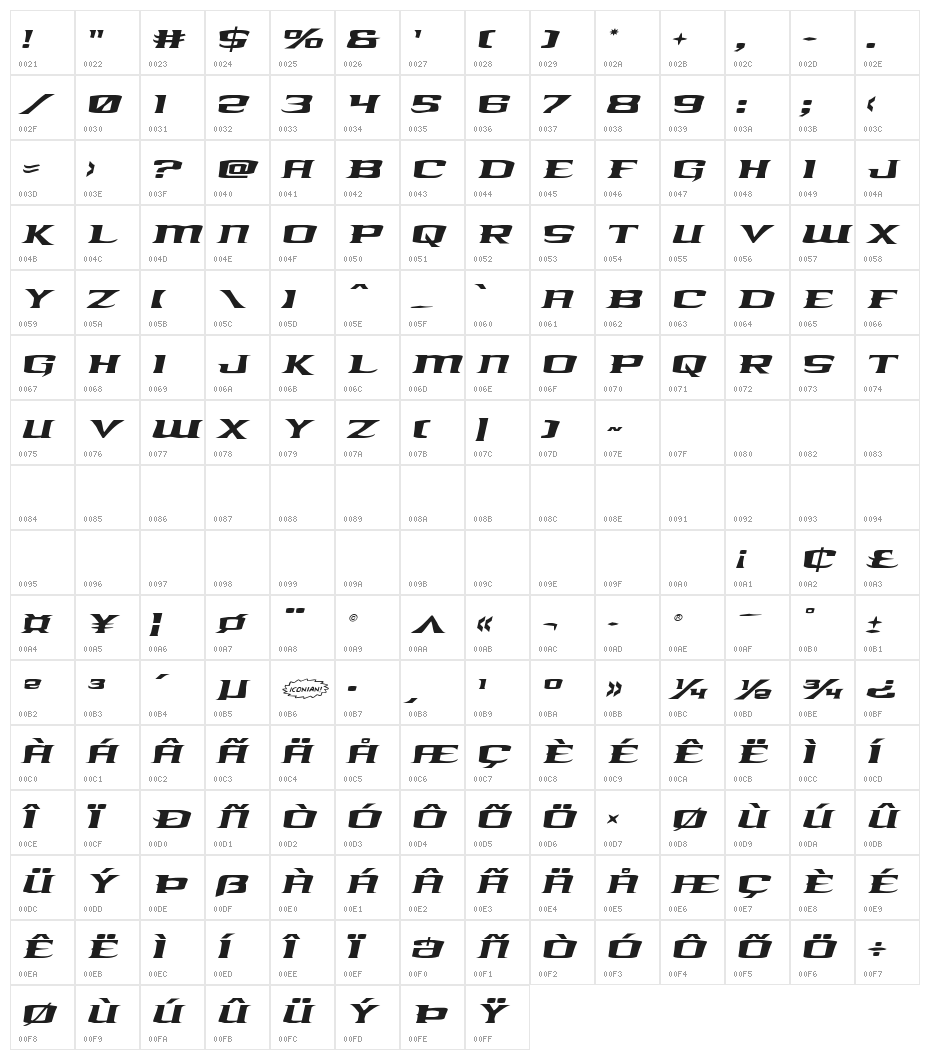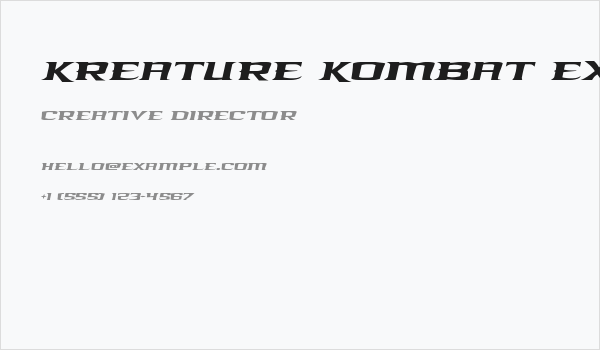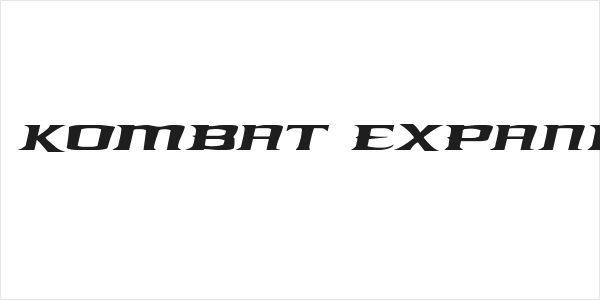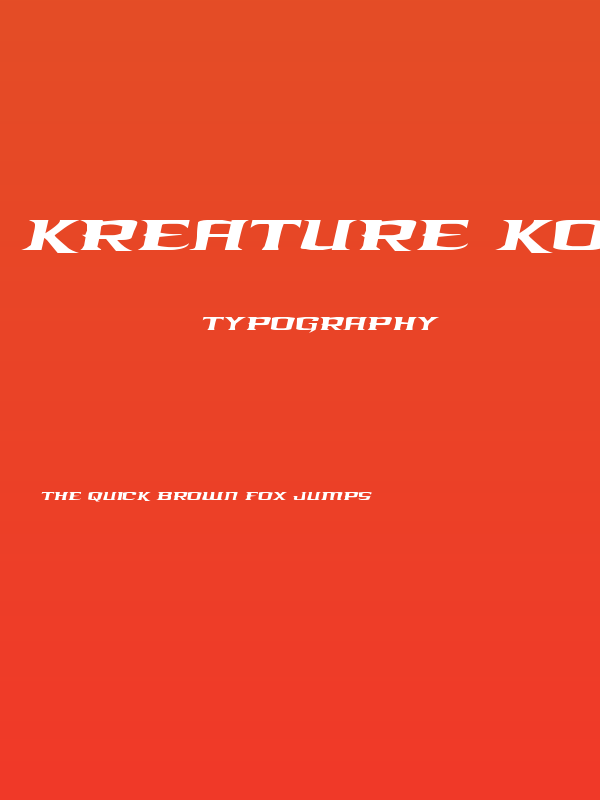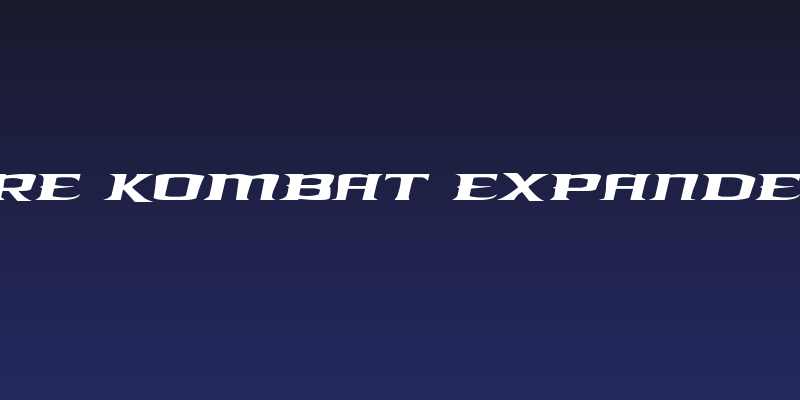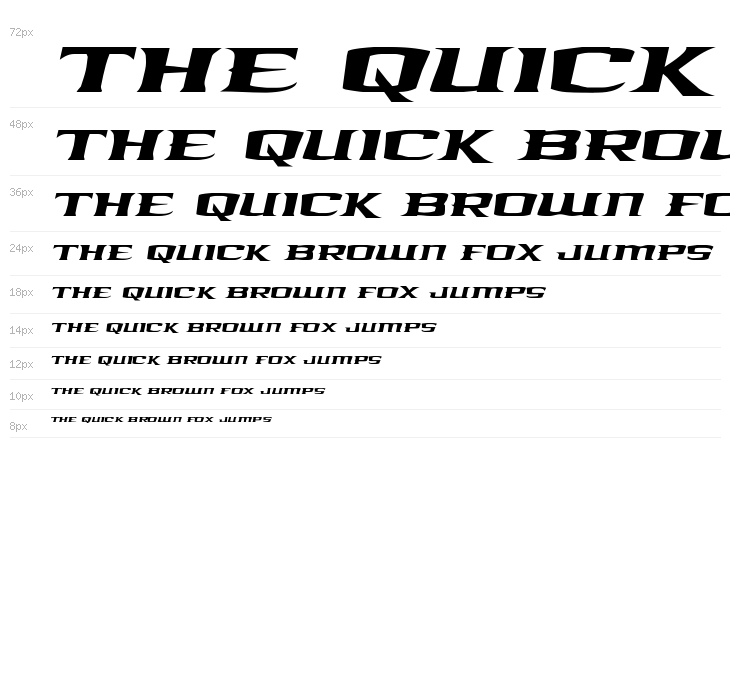
Kreature Kombat Expanded Italic Font
Kreature Kombat Expanded Italic Description
This font features a bold and dynamic style with sharp, angular edges that give it a fierce and aggressive appearance. The characters are italicized, adding a sense of motion and energy. The expanded width of the letters provides a commanding presence, making it ideal for attention-grabbing headlines or titles. The uppercase and lowercase letters maintain a consistent style, with unique cuts and slashes that enhance the font's edgy aesthetic. The numbers and special characters are equally bold, ensuring uniformity across all text elements. This font's distinctive look is perfect for projects that require a strong, impactful visual statement.
| Overall Style | Modern, Aggressive |
| Proposed Projects | Ideal for video game titles, movie posters, sports branding, and any project needing a bold, aggressive typeface. |